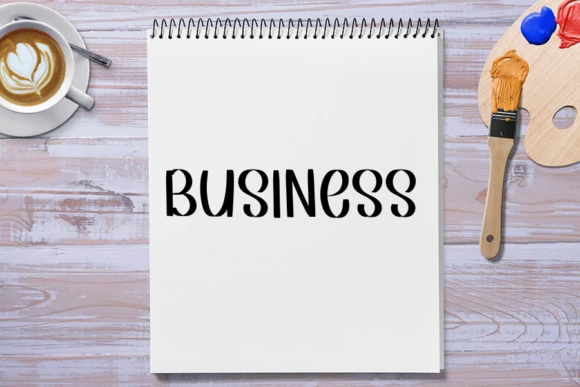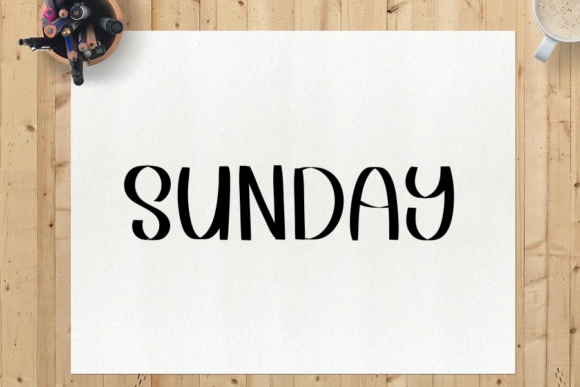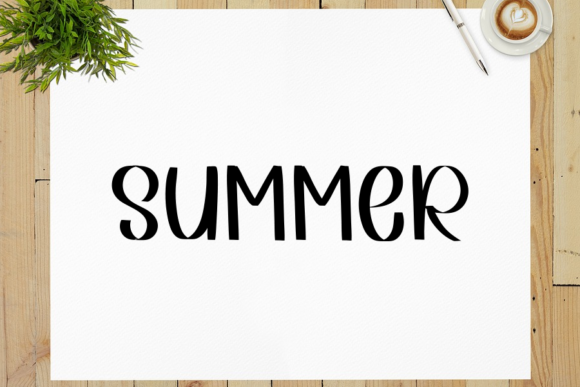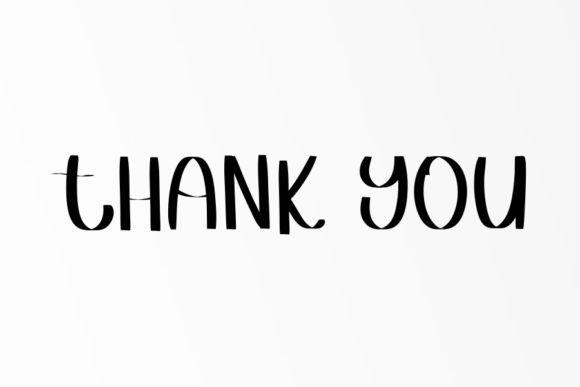
About Home Alone Font
“Home Alone” is a captivating and enchanting handwritten font that effortlessly blends modern sophistication with a whimsical charm. With its delicate and graceful strokes, this font transports your designs to a magical world filled with warmth and wonder.
The font’s unique style is characterized by its handcrafted appearance, reminiscent of handwritten notes and doodles. This lends a personal and intimate quality to your designs, evoking a sense of nostalgia and creating a connection with the viewer. The whimsical nature of “Home Alone” adds a touch of playfulness and imagination to your projects, making it a versatile choice for a variety of creative endeavors.
Imagine using “Home Alone” for a holiday greeting card – the font’s whimsical and modern flair would infuse the message with a sense of joy and festive spirit. The letters seem to dance across the page, bringing to mind the excitement and anticipation of the holiday season.
For home decor and DIY projects, “Home Alone” adds a touch of magic to personalized creations. Whether it’s a handcrafted sign, a custom mug, or a framed print, the font’s whimsical style enhances the charm and uniqueness of the piece, creating a sense of coziness and comfort.
In the realm of social media, “Home Alone” can be a delightful addition to your posts and stories. Its handwritten aesthetic adds a personal touch to your content, making it feel more relatable and authentic. Whether you’re sharing snapshots of everyday life or promoting a special event, the font’s whimsical charm engages your audience and encourages interaction.
When used in branding and packaging, “Home Alone” conveys a sense of handmade craftsmanship and care. From product labels to packaging designs, the font’s whimsical strokes add a touch of personality that resonates with customers and communicates a sense of authenticity.
The versatility of “Home Alone” extends to children’s books and illustrations. The font’s playful and modern-yet-whimsical style makes it an ideal choice for bringing characters and stories to life, capturing the imagination of young readers and adding an extra layer of enchantment to the narrative.
Ultimately, “Home Alone” is more than just a font – it’s a magical doorway that invites your audience into a world of creativity and wonder. Its modern and whimsical aesthetic creates a sense of connection and emotion, making it a powerful tool for adding depth and personality to your designs. Whether you’re crafting a heartfelt message, curating your social media presence, or adding a touch of magic to your branding, “Home Alone” is the perfect companion for creating a truly enchanting experience.